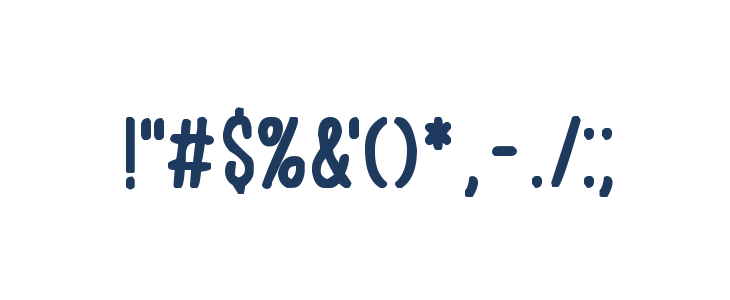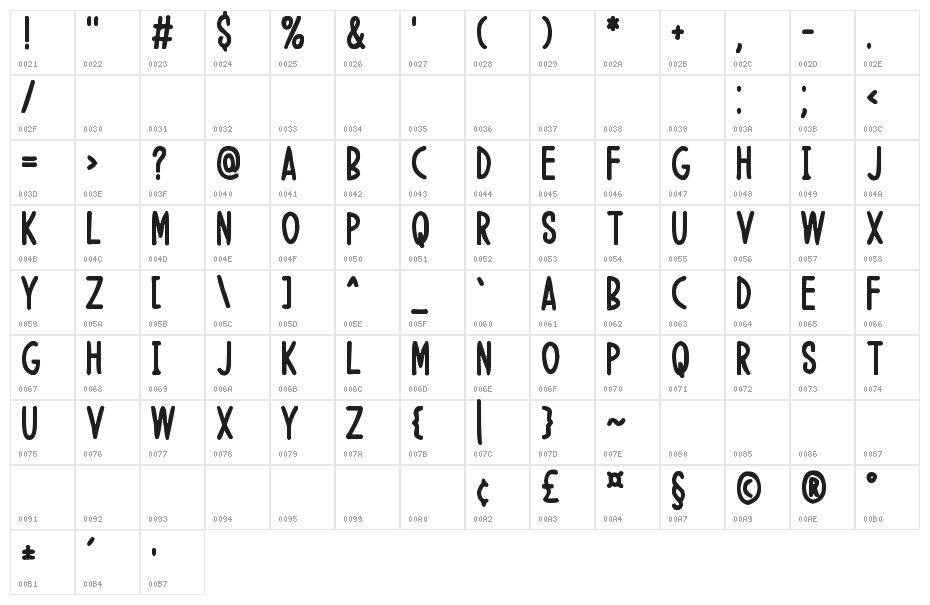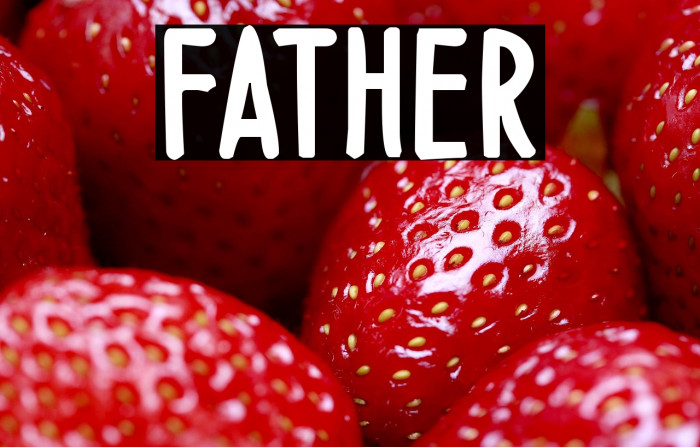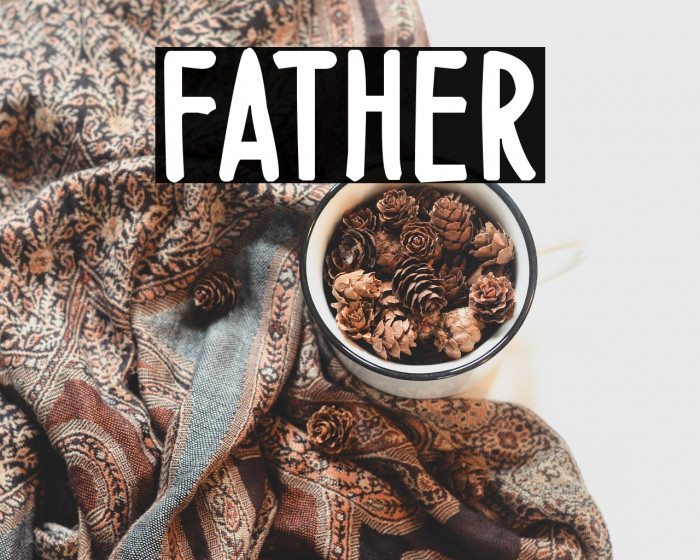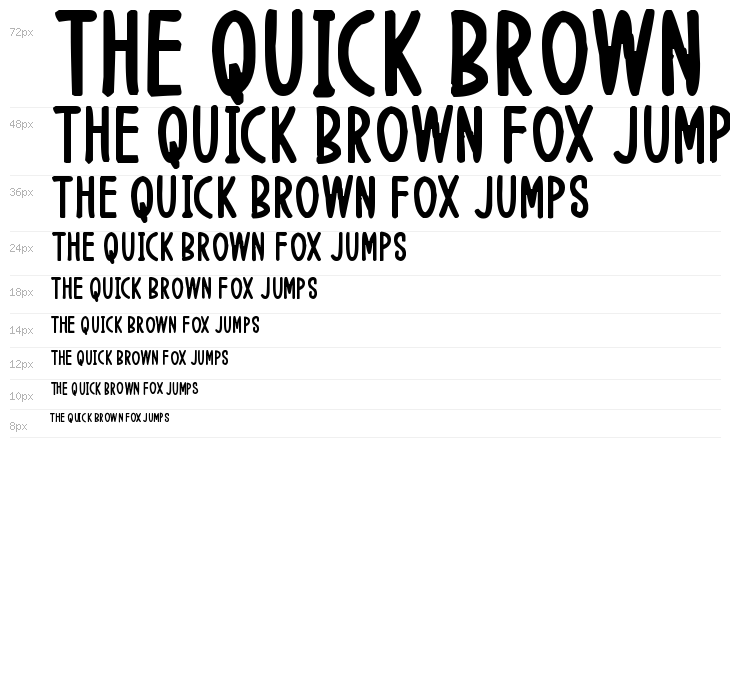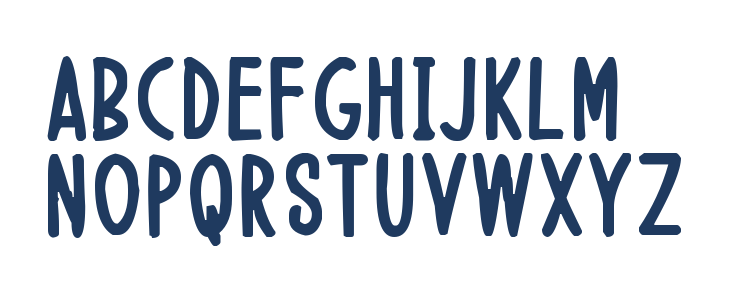
Father Font
Father Description
This font features a playful and bold handwritten style, characterized by its thick strokes and rounded edges. The uppercase and lowercase letters maintain a consistent weight, giving it a cohesive look. The characters are slightly irregular, adding a whimsical and informal touch. The numerals and special characters follow the same playful design, making it suitable for creative and casual projects. Its bold appearance ensures readability while maintaining a friendly and approachable aesthetic.
| Overall Style | Playful |
| Proposed Projects | Ideal for children's books, playful branding, greeting cards, and informal posters. |